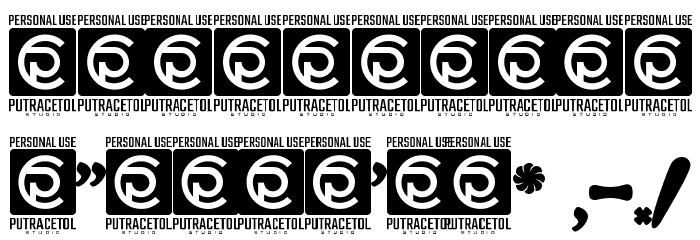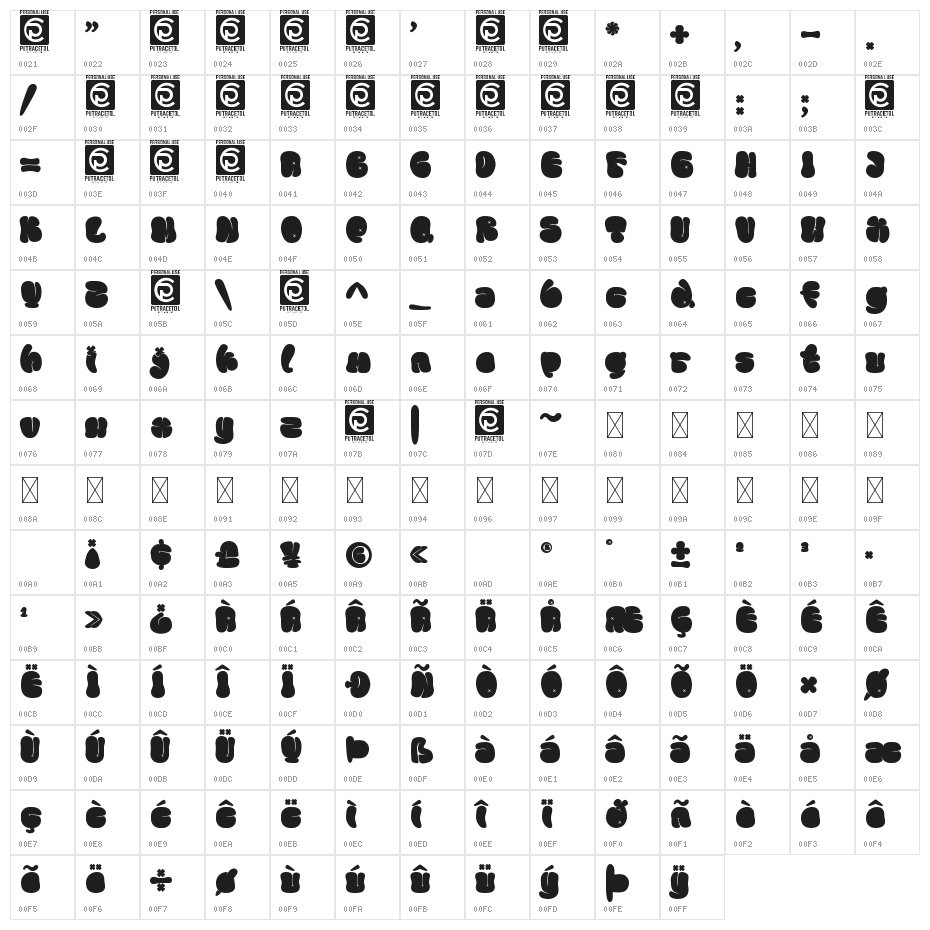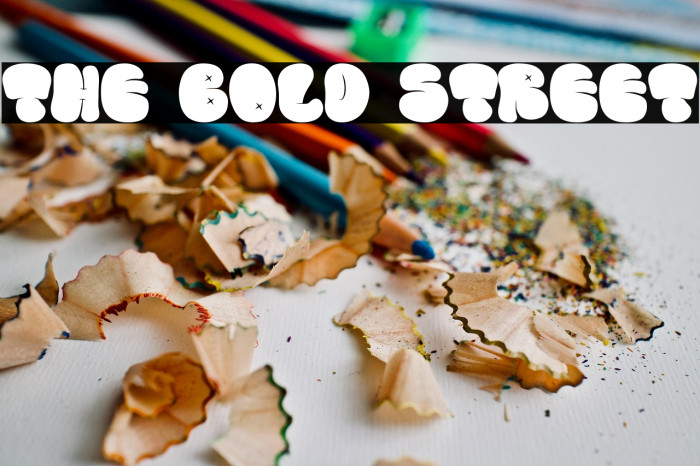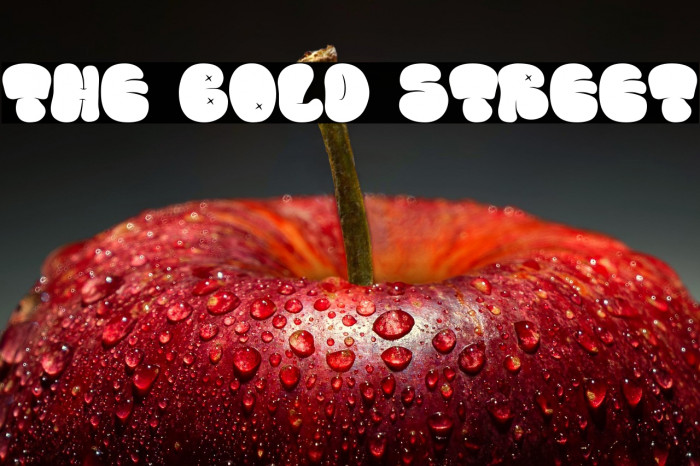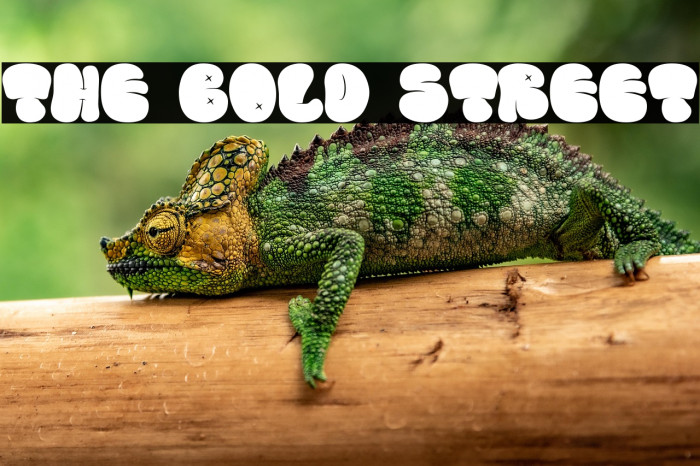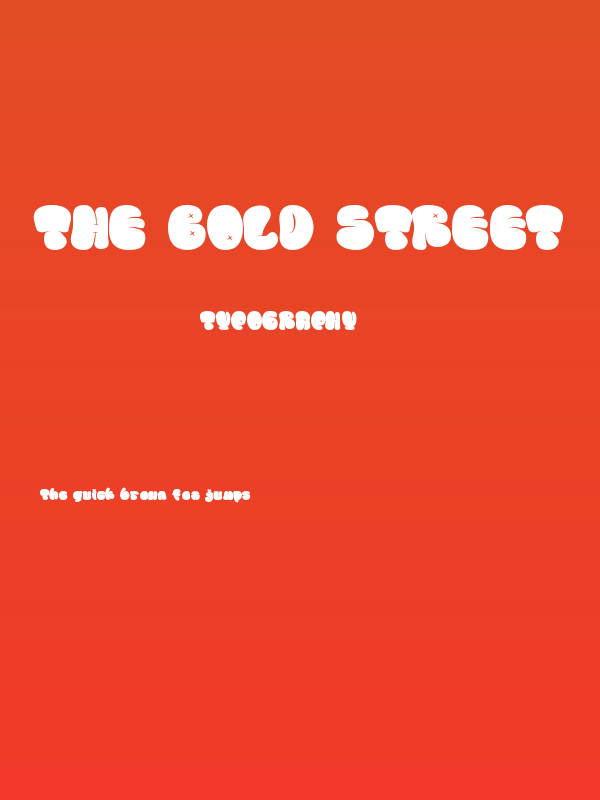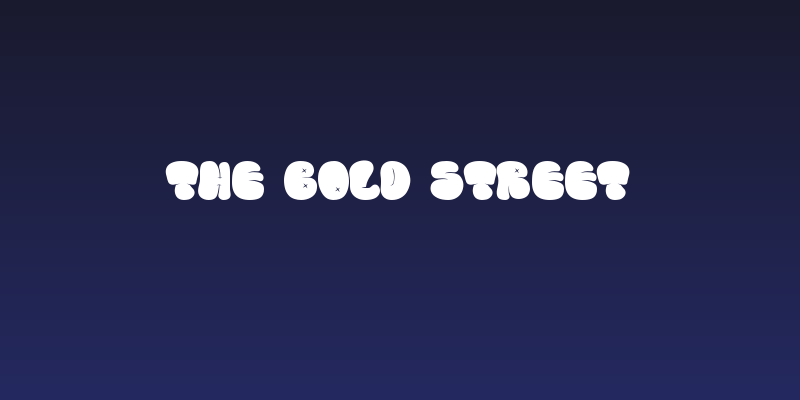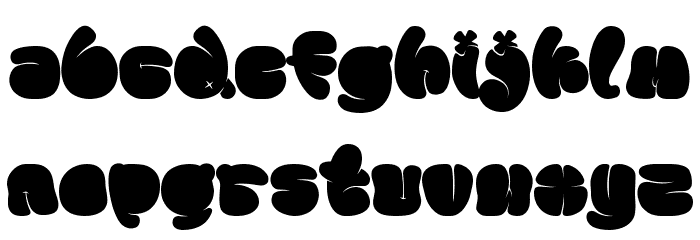
THE BOLD STREET Font
THE BOLD STREET Description
This font features a bold, rounded style with a playful and modern aesthetic. The characters are heavily weighted, creating a strong visual impact. Each letter is crafted with smooth curves and a consistent thickness, giving the font a cohesive look. The uppercase and lowercase letters maintain a uniform style, while the numbers and special characters complement the overall design. The font's unique appearance makes it suitable for eye-catching designs and creative projects.
| Proposed Projects | Ideal for posters, logos, branding materials, and any project requiring a bold and playful typeface. |